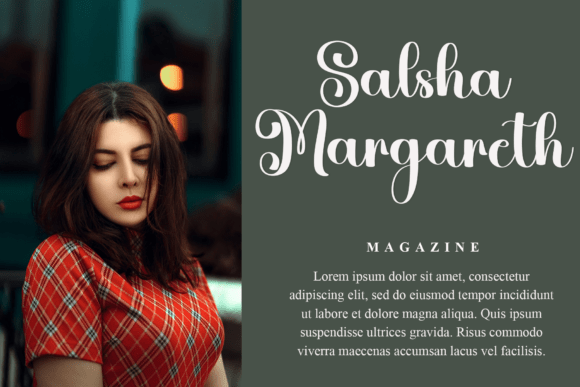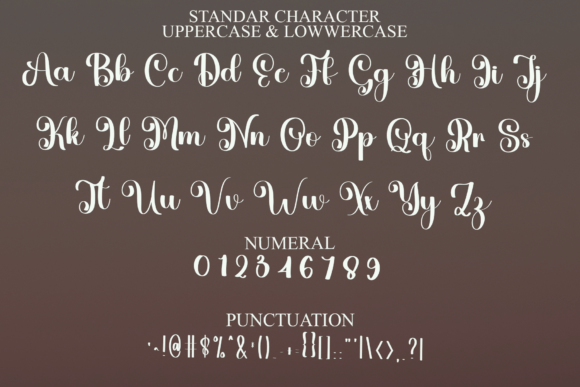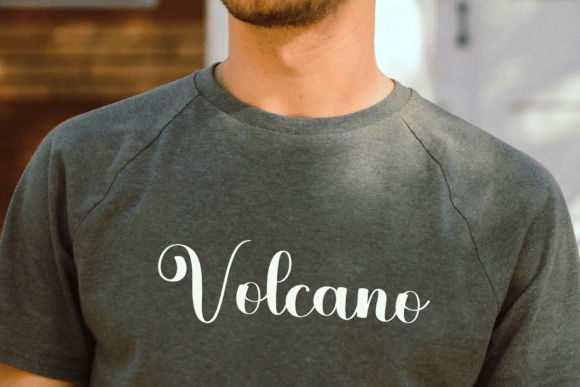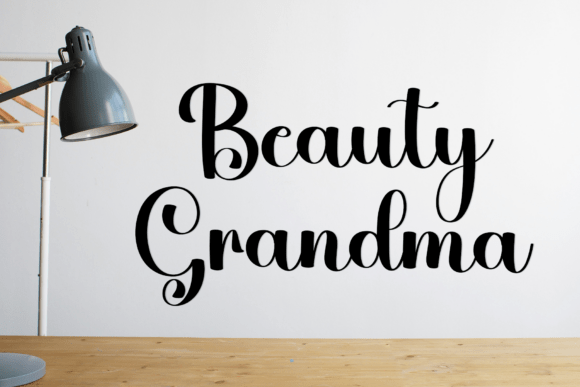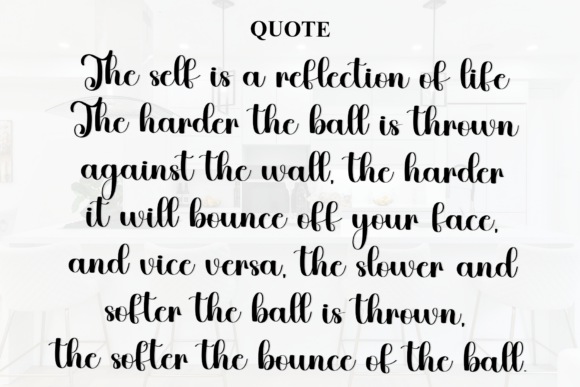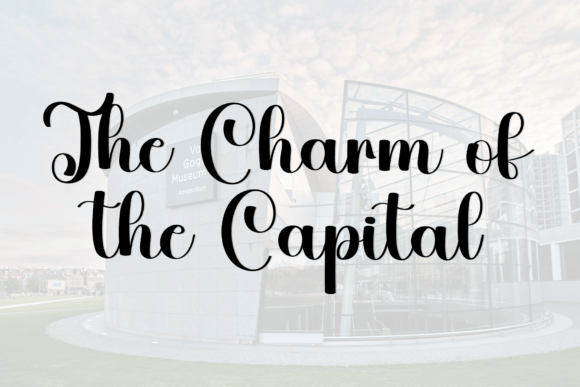
Discover the Charm of Amsterdam Font: Elevate Your Designs with its Unique Touch
Are you on the hunt for a font that adds a touch of elegance and whimsy to your design projects? Look no further than the Amsterdam Font. This beautiful and eye-catching typeface is designed with a soft, unique touch that sets it apart from other fonts. Its distinctive strokes give it a special character, making it meaningful and versatile for future use.
What Makes Amsterdam Font Stand Out?
The Amsterdam Font boasts a range of features that make it perfect for designers and crafters. With its various characters, this font is ideal for a wide range of creative projects, from design and crafts to other artistic endeavors. Whether you’re working on a logo, brochure, or social media graphics, the Amsterdam Font is sure to make your designs stand out.
Key Features of Amsterdam Font
- Unique and Soft Touch: The Amsterdam Font is designed with a soft and unique touch that gives it a distinctive feel.
- Versatile: With its various characters, this font is perfect for a wide range of design projects and creative works.
- Natural Font Style: This font features a natural style that is ideal for a wide range of products, from logos and brochures to crafts and other creative projects.
Why Choose Amsterdam Font for Your Designs?
So, why choose the Amsterdam Font for your designs? For starters, its unique and soft touch adds a touch of elegance and whimsy to any project. Its versatility also makes it perfect for a wide range of creative works, from design and crafts to other artistic endeavors. Additionally, its compatibility with various applications makes it easy to use across different platforms.
Applications of Amsterdam Font
The Amsterdam Font is perfect for a wide range of design projects, including:
- Logo Design: Create stunning logos that stand out with the Amsterdam Font.
- Brochure Design: Add a touch of elegance to your brochures with this beautiful font.
- Social Media Graphics: Make your social media graphics stand out with the Amsterdam Font.
- Crafts: Use the Amsterdam Font to add a personal touch to your crafts, from handmade cards to DIY projects.
In conclusion, the Amsterdam Font is a beautiful and eye-catching typeface that is perfect for designers and crafters. Its unique and soft touch, versatility, and compatibility with various applications make it a great addition to any design project. Whether you’re working on a logo, brochure, or social media graphics, the Amsterdam Font is sure to elevate your designs and make them appealing to many audiences across different artistic and creative fields.